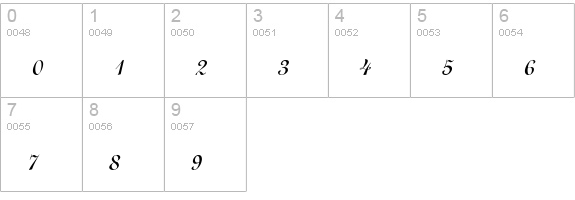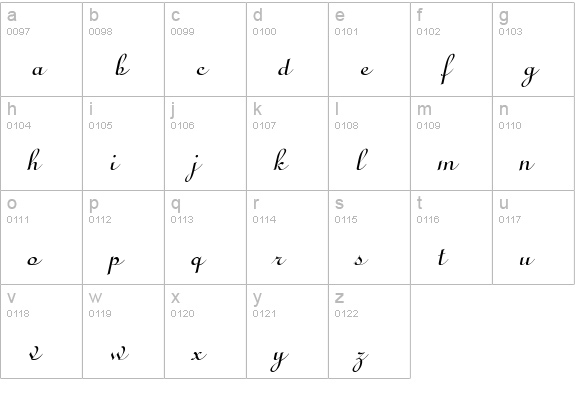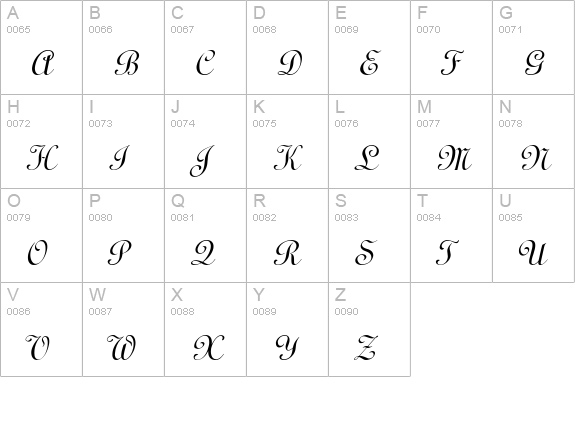
Lucy Italic is a distinctive, italic variant in the Lucy typeface family \xE2\x80\x94 well suited to design and typography projects.
Introducing Lucy Italic, a beautifully designed font that exudes elegance and sophistication. With its sleek and stylish italicized letters, Lucy Italic is perfect for adding a touch of class to any project. Whether you're designing a wedding invitation, a logo, or a poster, this font will surely make a statement. The best part? Lucy Italic is completely free to download at FontsMarket.com. Yes, that's right - you can add this stunning font to your collection without spending a dime. So why wait? Enhance your designs with Lucy Italic today and watch them come to life with its unique charm and flair.